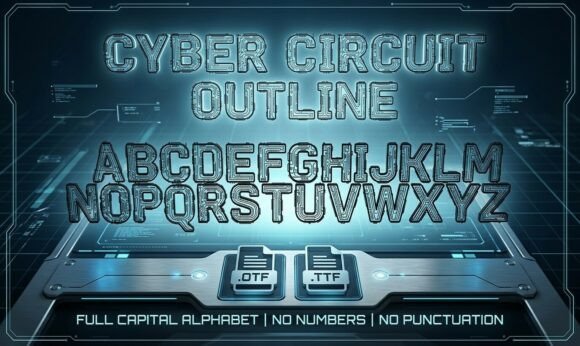
Introduction to Cyber Circuit Outline Font
Have you ever stared at a blank canvas, struggling to bring your futuristic design to life? I know I have. But then, something sparks – a burst of inspiration, a dash of creativity, and suddenly, your project takes shape. For me, it was a chance encounter with the Cyber Circuit Outline Font. This stunning display font is a game-changer for designers, and I’m excited to share its awesomeness with you.
With intricate linework inspired by printed circuit boards, robotics, and cyberpunk aesthetics, the Cyber Circuit Outline Font is a design resource that will elevate your creative project to new heights. Its high-quality details and transparent background make it a versatile choice for a wide range of applications, from gaming logos to sci-fi movie posters.
Key Features of Cyber Circuit Outline Font
- Unique Outline Design: Cyber Circuit Outline Font offers a futuristic and edgy look, perfect for creative projects that require a high-tech feel.
- Transparent Background: The font’s transparent background allows for easy customization and blending with any design element.
- High-Quality Typography: This font is designed to deliver high-quality typography, ideal for professional designs and creative projects.
- Resolution-Independent: Designed to be resolution-independent, this font looks great at any size, from small icons to large headings.
- Perfect for Design Projects: Cyber Circuit Outline Font is an ideal design resource for creative projects, including graphic design, UI/UX design, and digital art.
Honest Review: Cyber Circuit Outline Font
I recently had the chance to work with the Cyber Circuit Outline Font, and I must say it’s been a great addition to my design arsenal. This font is perfect for any creative project that requires a futuristic or high-tech vibe.
- ✨ High quality design: The font is well-crafted and looks great on both light and dark backgrounds.
- ✨ Transparent background option: This feature makes it easy to use the font on any design without worrying about the background color.
- ⚠️ Limited character set: The font only includes a limited set of characters, which may not be suitable for longer texts.
- ⚠️ Not ideal for small text sizes: The font can look a bit pixelated when used at small text sizes.
Overall, I’m impressed with the Cyber Circuit Outline Font. It’s a great design resource for anyone working on a creative project that requires a futuristic or high-tech feel. With a little creativity, you can work around the limitations and achieve some amazing results.
For optimal results, use the Cyber Circuit Outline Font in conjunction with other design elements to create a cohesive and visually appealing design. Experiment with different font sizes and colors to find the perfect balance for your project.
The Cyber Circuit Outline Font is ideal for use in tech-related designs, such as circuit board diagrams, robotics projects, and futuristic graphics. Its high-quality design makes it perfect for use in a variety of creative projects.
Q: Is the Cyber Circuit Outline Font a high-quality design resource?
Yes, the Cyber Circuit Outline Font is a high-quality design resource that is designed to meet the needs of professional designers. The font features a unique and futuristic design aesthetic, making it perfect for creative projects that require a cutting-edge look and feel.